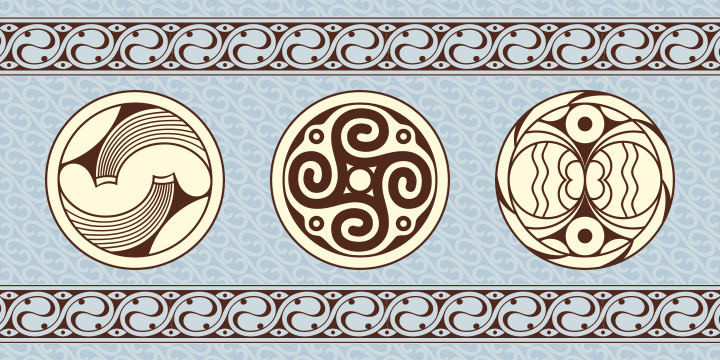
You can use Trypillya 2D Font in various creative projects like branding logos, historical or cultural posters, game UI design, album artwork, and decorative print materials.
What makes this font truly exciting is its unique blend of ancient Ukrainian script aesthetics with a modern geometric twist. It offers a nostalgic yet contemporary vibe that immediately catches the eye and adds depth to any visual concept.
Trypillya 2D Font belongs to a distinct typographic family characterized by bold lines, ornamental accents, and a slightly futuristic serif flair. It often pairs well with minimalist sans-serifs to create a dramatic typographic contrast.